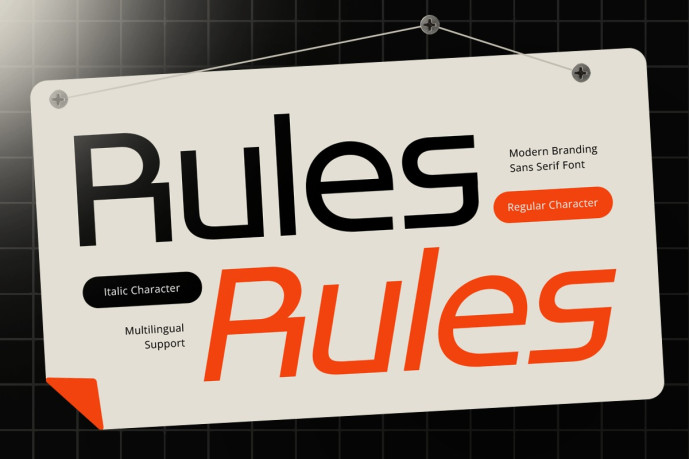
Rules – Modern Branding Sans Serif Font
Rules – Modern Branding Sans Serif Font is a clean and versatile sans serif font designed for modern branding, logo design, corporate identity, editorial layouts, and professional visual communication. Inspired by contemporary minimalist typography and strategic brand systems, Rules delivers a refined typographic style that balances clarity, functionality, and modern aesthetics.
Featuring clean letterforms, balanced proportions, and a contemporary sans serif structure, Rules provides exceptional readability while maintaining a distinctive professional character. Its versatile design makes it an excellent choice for branding projects, digital products, marketing materials, and business communications that require consistency and visual confidence.
Whether you’re creating a startup identity, designing a corporate logo, developing a visual branding system, or building a modern digital experience, Rules offers the flexibility and precision needed to create memorable and impactful designs.
Rules Font Features
Character Set: Uppercase, lowercase, numbers, symbols, and punctuation
Modern sans serif letterforms optimized for branding and professional typography
Available with 2 styles, regular and italic
OpenType features ready to enhance your design needs